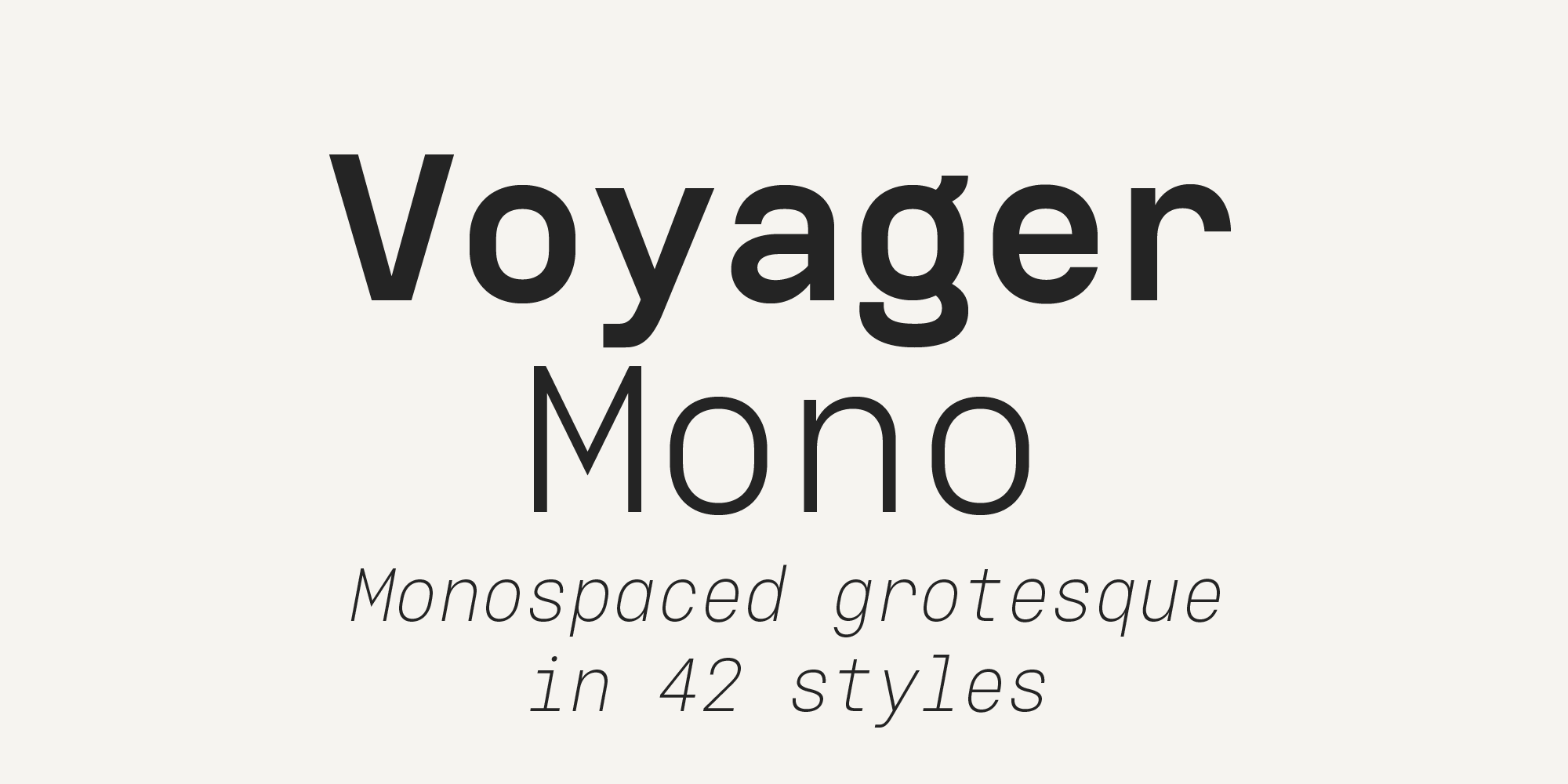
Voyager Mono Font is ideal for space mission coding interfaces, interstellar communication protocols, deep space exploration documentation, satellite programming terminals, astronomical data processing systems, space probe command interfaces, cosmic navigation displays, spacecraft telemetry readouts, orbital mechanics calculations, and revolutionary space technology presentations. This exploratory typeface excels in applications where space exploration precision and monospaced reliability need to be communicated with interstellar accuracy and pioneering spirit that embodies the essence of deep space voyages and the systematic precision required for successful interplanetary missions and cosmic exploration endeavors.
What makes Voyager Mono Font exciting is its remarkable ability to capture the pioneering spirit and systematic precision of deep space exploration through its uniformly spaced letterforms that project the kind of reliable consistency and exploratory confidence that space missions depend on for successful communication across vast cosmic distances. The font embodies the spirit of space exploration with its systematically structured construction and exploration-optimized proportions that suggest the methodical planning and unwavering reliability that characterizes successful space voyages and interplanetary missions. Its precisely engineered character details and exploratory personality create an atmosphere of cosmic confidence that resonates with space engineers, mission planners, and aerospace professionals who understand the critical importance of systematic precision and reliable communication in space exploration applications.
The Voyager Mono Font family typically includes Light, Regular, Medium, and Bold weights, each maintaining the signature monospaced characteristics and space exploration authenticity. Some versions offer enhanced space-grade variants optimized for mission-critical displays, alternative character sets with astronomical symbols and space notation, and specialized treatments designed for spacecraft interfaces and deep space communication systems. The family may also include condensed styles for efficient space mission layouts and display cuts optimized for maximum cosmic impact in aerospace and space exploration applications requiring authentic space-age credibility.
Whether you're creating space mission brands, cosmic exploration materials, or interstellar technology communications, Voyager Mono Font Free Download delivers the perfect exploratory precision your space-focused projects deserve. Its cosmic character and monospaced styling make it an invaluable choice for space agencies, aerospace companies, and cosmic research institutions working in space exploration, interplanetary missions, and deep space technology sectors where authentic space exploration heritage and systematic cosmic precision are essential for establishing credibility in the pioneering field of space exploration and inspiring confidence in humanity's greatest adventure beyond Earth.